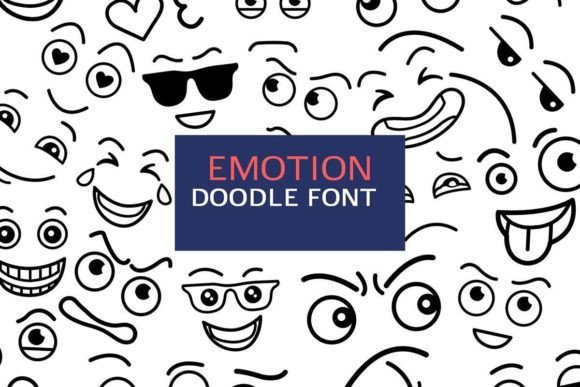
Emotion Doodle Font is your perfect companion for adding a touch of playfulness and cuteness to your designs. Created by digitalplannerland, this font is an excellent choice for anyone looking to create a unique and memorable project.
Whether you're a craft enthusiast or a professional designer, Emotion Doodle Font is a must-have in your font collection. Its playful dingbats will add a pop of fun to any design, making it perfect for a wide range of projects.
This font is ideal for projects such as planners, diaries, activity books, and anything that your heart desires! With its versatility, you can create designs that are unique and personalized.
Emotion Doodle Font is perfect for those who are looking for a Font Style for Project Work. Its cute and adorable doodles will add an emotional touch to your designs and make them stand out.
This font is not just a set of characters, but a collection of emotions that will bring your designs to life. Its fun and playful style will help you create memorable designs that will leave a lasting impression on your audience.
In conclusion, if you're looking for a font that will make your designs more playful and fun, then Emotion Doodle Font is the perfect choice for you. It's versatile, cute, and will add a touch of emotion to any project. Download Emotion Doodle Font today and let your creativity run wild!